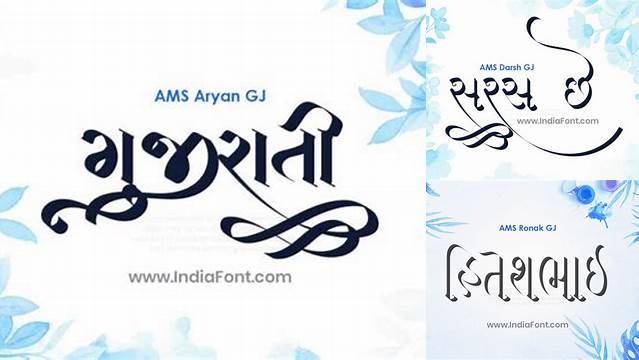
AMS Aryan Gujarati Calligraphy Font: Free Download Guide
Hey there, design enthusiasts! Ever found yourself searching for that perfect calligraphy font to add a touch of elegance and cultural flair to your projects? Well, look no further! Today, we're diving deep into the world of AMS Aryan Gujarati calligraphy font, offering you a free download and a comprehensive guide to using it effectively. Whether you're a seasoned graphic designer or just starting out, this article is your go-to resource for everything related to this beautiful font.
What is AMS Aryan Gujarati Calligraphy Font?
So, what exactly is AMS Aryan Gujarati calligraphy font? In a nutshell, it's a specially designed font that mimics the flowing, artistic style of traditional Gujarati calligraphy. It's perfect for adding a personal and artistic touch to your designs, whether it's for personal projects, professional branding, or anything in between. The beauty of this font lies in its ability to capture the essence of Gujarati script while still being easily readable and versatile. It's not just about the letters; it's about the feeling and emotion the font evokes. The delicate strokes and unique curves of the font make it a standout choice for projects that need a touch of sophistication and cultural richness. When using AMS Aryan, you're not just typing; you're making a statement. You're bringing a piece of Gujarati heritage and art into your creative work. The font's availability as a free download makes it accessible to everyone, ensuring that this beautiful art form can be incorporated into a wide range of projects without any financial barriers. The detailed design of the letters also means that AMS Aryan is more than just a font; it's a piece of art ready to elevate your creative endeavors. So, if you're looking to inject a bit of cultural charm and artistic flair into your designs, AMS Aryan is an excellent place to start.
Why Choose AMS Aryan? Key Features and Benefits
Why should you choose AMS Aryan Gujarati calligraphy font over other options, you might ask? Well, let me tell you! First off, it's the authenticity and beauty it brings to your designs. The font's design is rooted in traditional Gujarati calligraphy, ensuring that your text will look authentic and culturally relevant. This is particularly important if you're working on projects that celebrate Gujarati culture or require a touch of regional identity. But the benefits don't stop there. One of the biggest advantages is the free download accessibility. This opens up a world of creative possibilities without any financial investment. You can experiment with different designs, create stunning visuals, and learn new skills without worrying about costs. The font's versatility is another key feature. It works well across a wide range of applications, from logos and branding materials to invitations, social media graphics, and even website headers. Its elegant style makes it suitable for both formal and informal contexts. Also, it's easy to use. Once downloaded and installed, the font integrates seamlessly into your design software, meaning you can start using it right away without any complicated setup. The readability is another crucial aspect. While calligraphy fonts can sometimes be difficult to read, AMS Aryan strikes a balance between artistic expression and clarity, ensuring your message gets across effectively. With all these features, AMS Aryan is a font that truly stands out. It's a combination of beauty, accessibility, and versatility, making it a top choice for designers looking to add a touch of Gujarati elegance to their work. Whether you're a professional designer, a student, or a hobbyist, this font provides a unique way to express your creativity and connect with the rich heritage of Gujarati culture.
Tips for Using AMS Aryan in Your Designs
Now that you have the AMS Aryan Gujarati calligraphy font installed and ready to go, let's explore some tips to make the most of it in your designs. First, choose the right context. Consider the tone and message of your project. AMS Aryan is perfect for projects that require an elegant, cultural, or artistic touch. Think invitations, posters, logos, and social media graphics. Use it strategically. Avoid overusing the font; a little goes a long way. A single headline or a few key words in AMS Aryan can make a big impact, but using it for large blocks of text might affect readability. Complement it with other fonts. Pair AMS Aryan with a clean, readable sans-serif or serif font for body text. This will provide contrast and enhance the overall aesthetic. Adjust the size and spacing. Experiment with font sizes and letter spacing to find what looks best. The unique strokes of AMS Aryan might require some tweaking to ensure readability and visual appeal. Color choice matters. Consider the colors you're using with the font. Complementary colors can make the text pop, while softer tones can give it a more subtle, elegant feel. Think about the background too. The background should complement the font and not compete with it. Use a simple background to let the font shine. Consider your audience. Make sure the font choice resonates with your target audience. If they appreciate traditional Gujarati culture and design, AMS Aryan will be a great fit. If your audience might not understand the Gujarati script, you may want to use the font selectively or provide context. Practice and experiment. The best way to master the use of AMS Aryan Gujarati calligraphy font is to practice and experiment. Try different combinations, layouts, and colors to find what works best for your style and the specific project you're working on. Remember, the goal is to create visually appealing and effective designs.
Even with a beautiful font like AMS Aryan Gujarati calligraphy font, there are some common mistakes that can undermine your design. Avoiding these mistakes will ensure your work looks professional and appealing. Firstly, don't overuse the font. While it’s tempting to use such a beautiful font everywhere, using it excessively can make your design look cluttered and difficult to read. Restrict the font to headlines, titles, or key phrases to maintain visual balance. Secondly, poor readability can be a major issue. Ensure that the font size is large enough to be easily read, especially in longer texts. Also, be mindful of the background color. The font should contrast well with the background to make it legible. Avoid placing the font over busy or patterned backgrounds. Another mistake is neglecting the kerning and leading. Kerning (the space between individual letters) and leading (the space between lines) can significantly affect the readability and visual appeal of your text. Pay attention to these settings in your design software and adjust them as needed. Don't neglect the context. Ensure that the font choice is appropriate for your project's message and target audience. Using a calligraphy font in the wrong context can create confusion or misunderstandings. Overlooking the cultural context is another mistake. Remember that this is a Gujarati calligraphy font, so use it in a way that is respectful and appropriate to Gujarati culture. Finally, avoid using low-quality images. If you're incorporating images into your design, make sure they are of high resolution and quality. Low-quality images can detract from the overall design and make your font look less professional. By avoiding these common mistakes, you'll be able to use AMS Aryan Gujarati calligraphy font effectively and create stunning designs that capture the essence of Gujarati calligraphy.
Where to Use AMS Aryan Font
So, where can you actually put AMS Aryan Gujarati calligraphy font to use? The possibilities are pretty much endless, guys, but here are some ideas to get your creative juices flowing! First off, branding and logo design. This font is perfect for creating logos and brand identities that have a unique, elegant, and cultural feel. It's especially great for businesses that want to highlight their Gujarati heritage or offer a touch of sophistication. Next up, invitations and greeting cards. Are you planning a wedding, a birthday party, or a special event? AMS Aryan is the perfect choice for crafting beautiful invitations that are both stylish and culturally relevant. Think about how it would look on wedding cards, anniversary announcements, or festive greetings. Then, social media graphics. If you're active on social media, this font can help you create eye-catching graphics that stand out from the crowd. Use it for quote cards, promotional posts, or even to spice up your profile pictures. Another area where it excels is website headers and banners. A well-designed header with AMS Aryan can instantly grab the attention of your website visitors and set the tone for your site. The font's aesthetic can be incorporated into your web design, giving your site a unique visual identity. You can use it in the creation of print materials such as posters, brochures, and flyers. If you're promoting an event or a product, the font can make your materials look more attractive and professional. Educational materials are also a great application; use the font in presentations, educational posters, and study aids to engage students and add a cultural touch. Think also of personal projects and art. If you love art and design, use the font for creating unique pieces, art prints, or even digital art. The font will bring a traditional art style to your personal creative work. Also, consider it for cultural and community events. Use the font for announcements, posters, and promotional materials for events that celebrate Gujarati culture or heritage. By using the AMS Aryan font in these areas, you can bring a sense of elegance and authenticity to your projects.
Well, there you have it, guys! A complete guide to AMS Aryan Gujarati calligraphy font, including a free download, usage tips, and common mistakes to avoid. This beautiful font offers a unique blend of elegance and cultural richness, perfect for adding a special touch to any project. Whether you're a designer looking to expand your font library or simply someone who appreciates the beauty of Gujarati calligraphy, AMS Aryan is a must-have. So go ahead, download it, experiment with it, and let your creativity flourish! We hope this guide has been helpful and inspires you to create amazing designs. Happy designing!